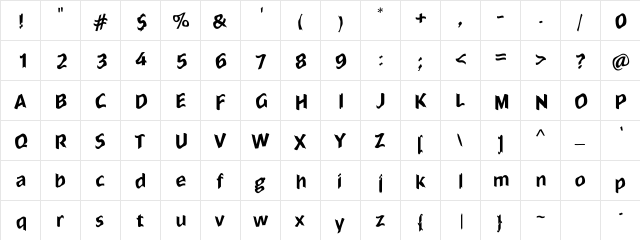
Dross02 Regular
Design Context for Dross02 Typeface
Dross02 is a composed and adaptable typeface that performs quietly and consistently across a wide range of design contexts.